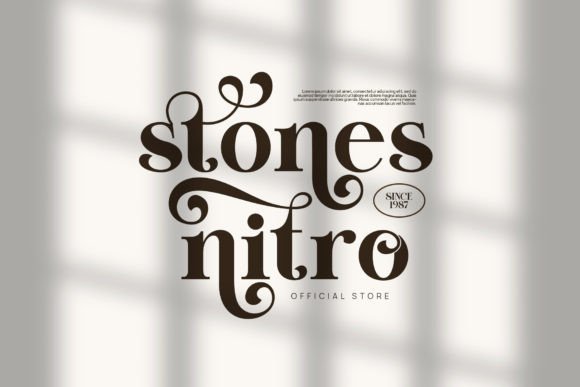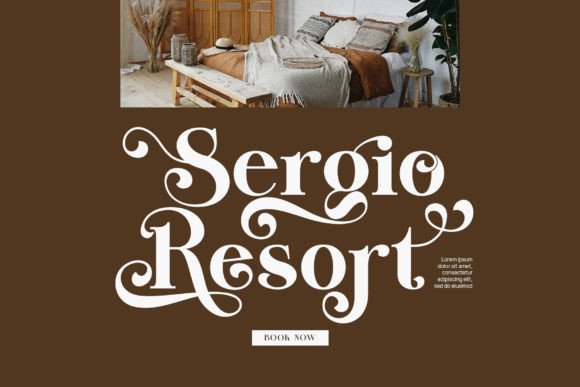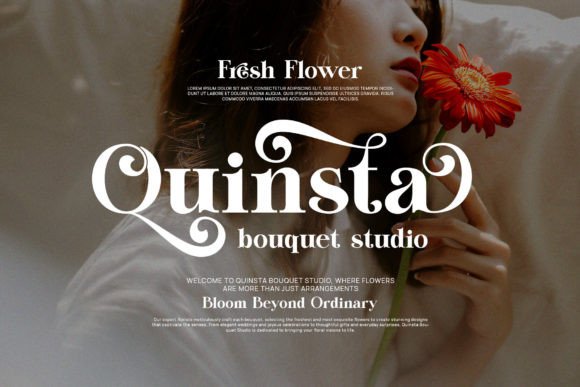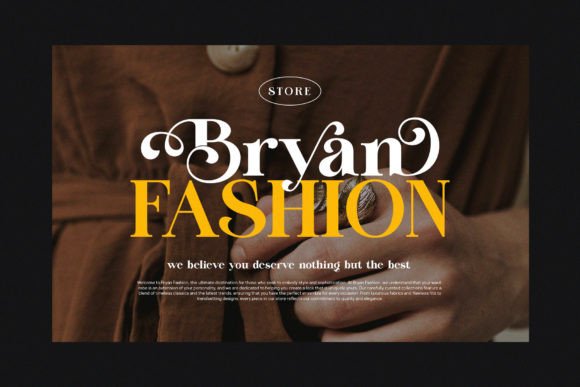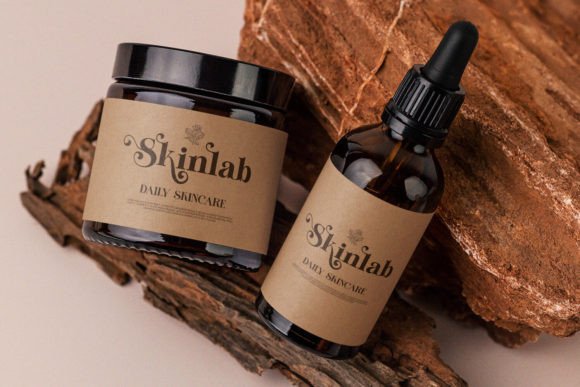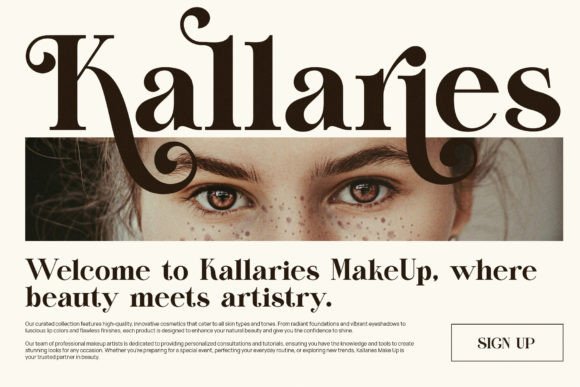
Introduction to Ralika Font
Have you ever been stuck on a creative project, staring at a blank canvas, waiting for that perfect font to bring your vision to life? For designers, finding the right font can be a game-changer. It’s the difference between a good design and a great one.
Enter the Ralika Font, a stunning serif typeface that’s about to become your new go-to design resource. With its elegant lines and beautiful ligature options, this font is perfect for branding projects, logos, social media posts, and so much more.
Key Features of Ralika Font
- High-quality, professional font suitable for various creative projects, including design, publishing, and digital media.
- Features a unique, elegant design that is perfect for projects requiring a touch of sophistication and refinement.
Honest Review: Ralika Font
As a designer, I’m always on the lookout for high-quality design resources to elevate my creative projects. Recently, I stumbled upon the Ralika Font, and I’m excited to share my thoughts on it.
What works well is the font’s versatility and playfulness. ✨ The Ralika Font comes in a variety of weights, making it perfect for both heading and body text. The font’s unique design elements add a touch of whimsy to any project, making it an excellent choice for creative projects that require a bit of flair.
- Versatile and playful design
However, I did encounter some limitations. ⚠️ The font’s weight distribution can be a bit inconsistent, and the font may not be suitable for all types of projects. Additionally, the font’s unique design elements may not be to everyone’s taste.
Overall, I’m impressed with the Ralika Font’s potential, but it’s essential to consider its limitations before incorporating it into your design project. If you’re looking for a high-quality font that adds a touch of personality to your work, the Ralika Font is definitely worth exploring.
Tips for Getting the Most Out of Ralika Font
Ralika Font is commonly used in graphic design, digital art, and creative projects. It’s perfect for creating logos, business cards, and social media graphics. You can also use it to add a touch of elegance to